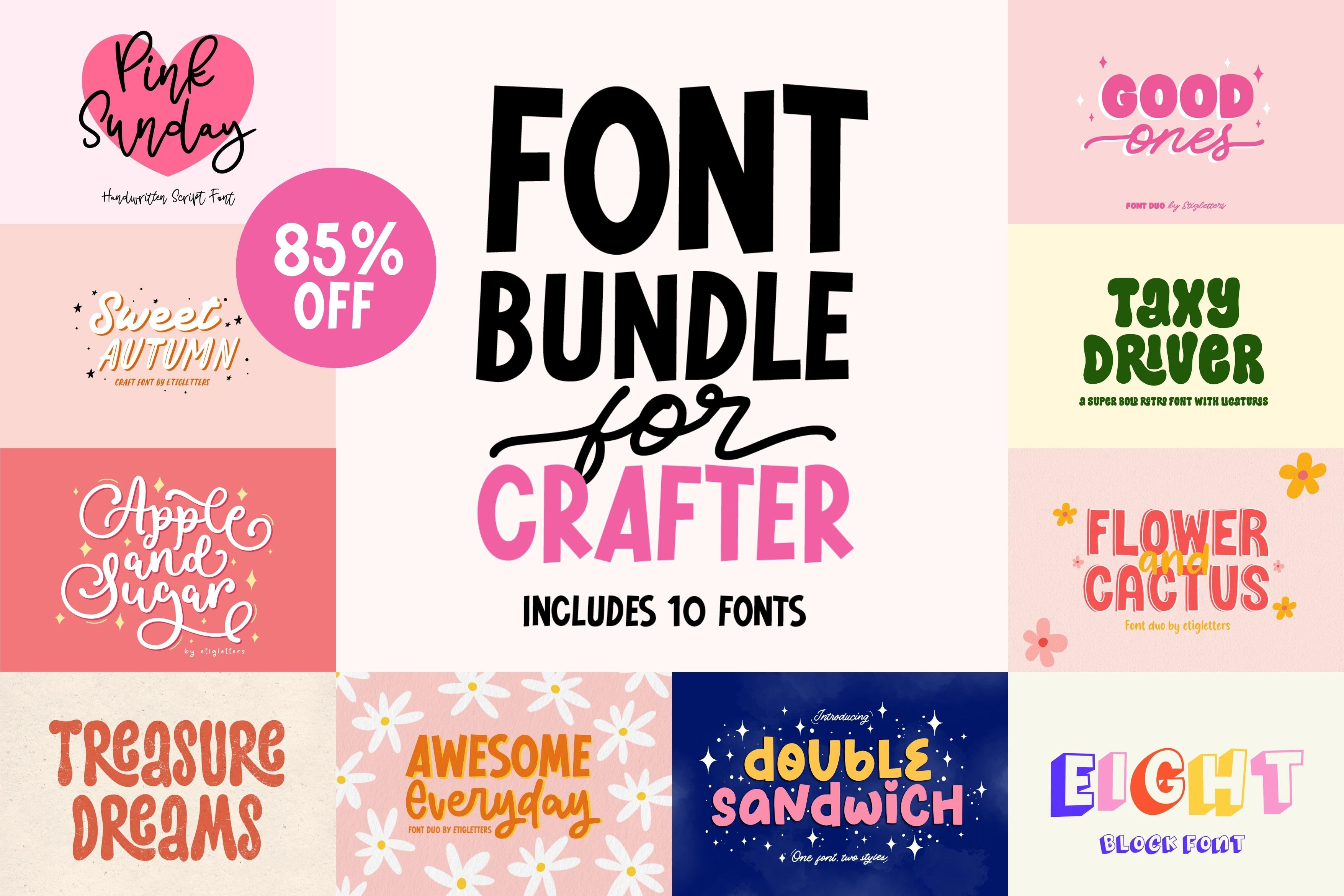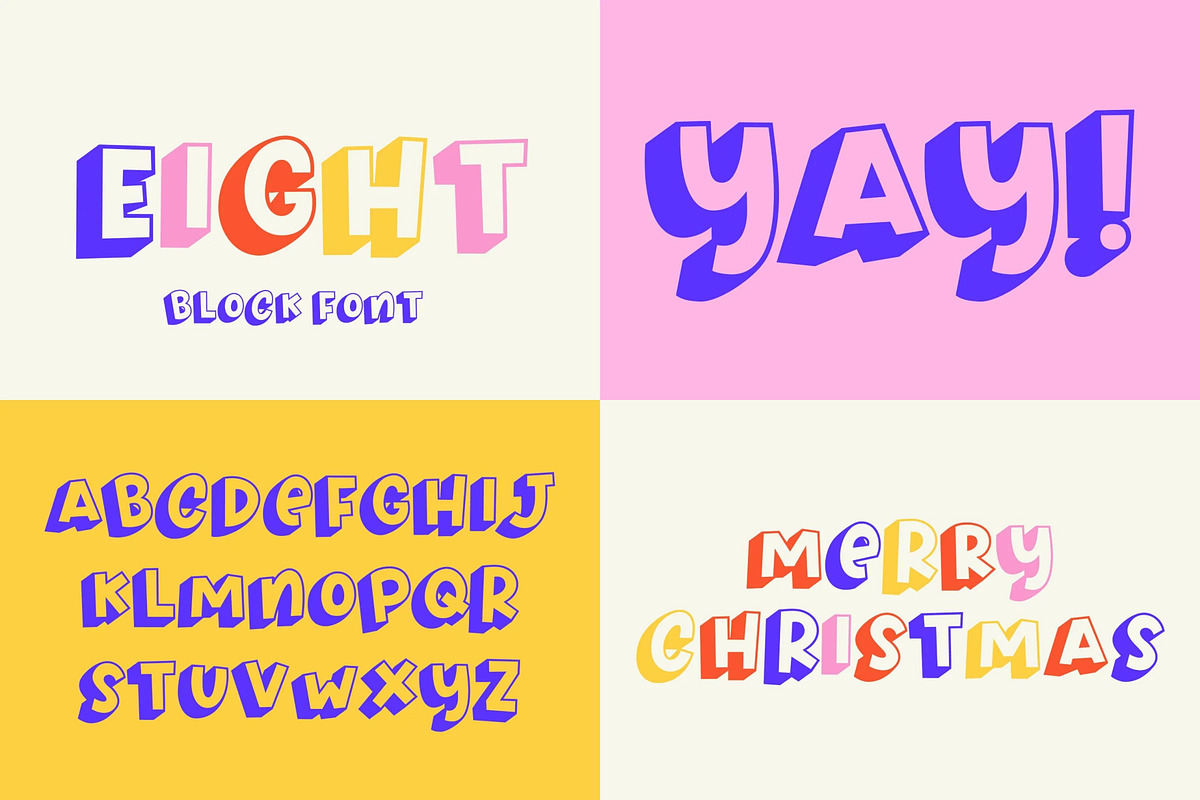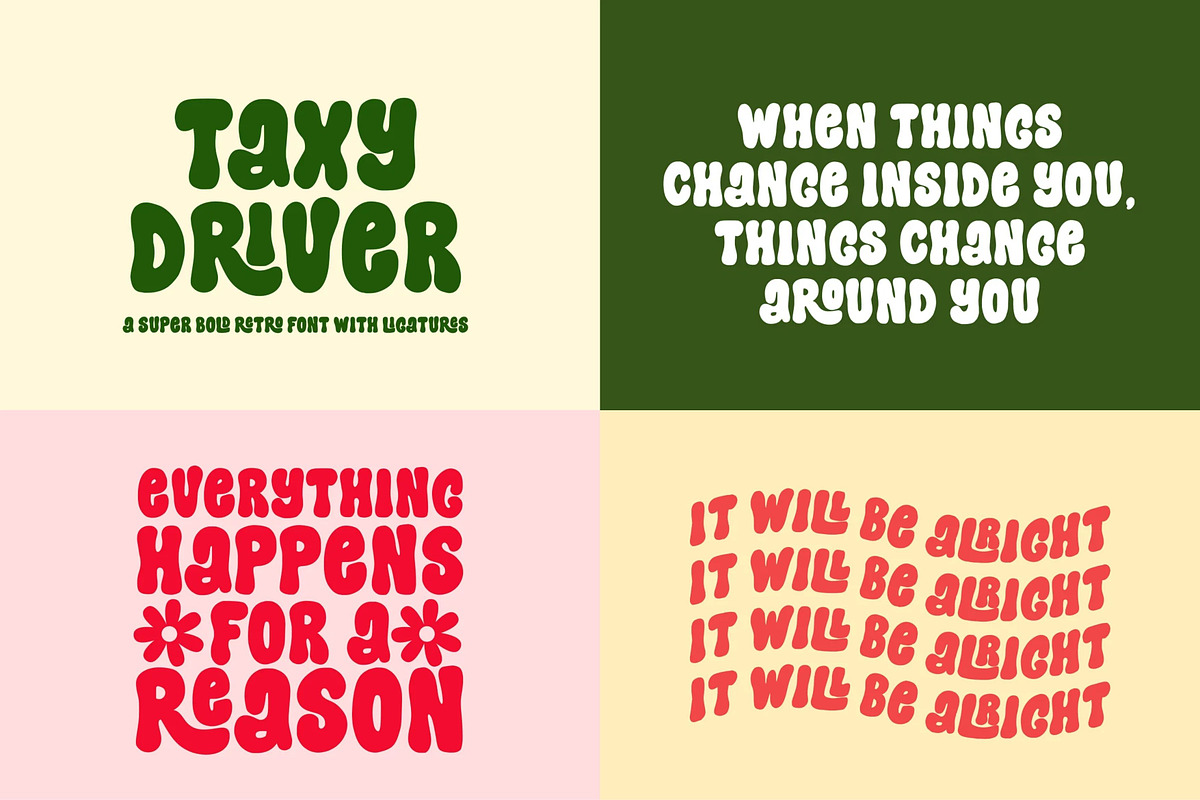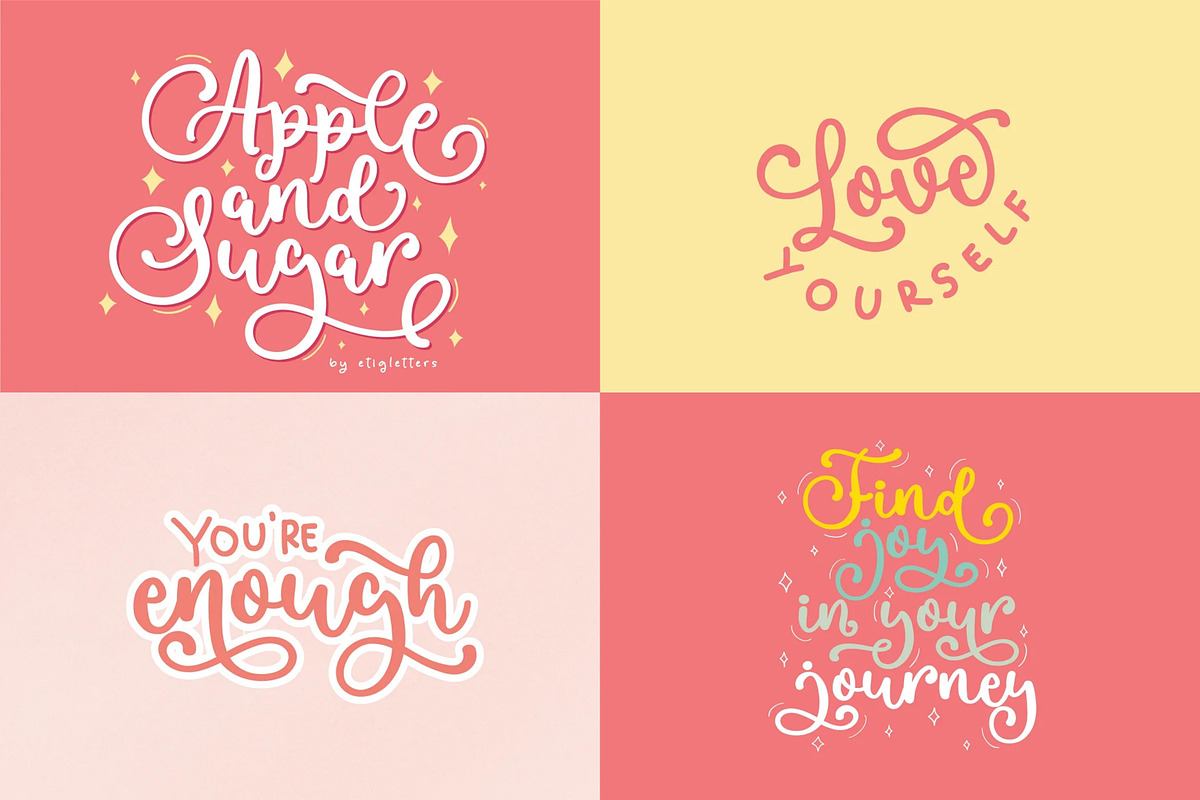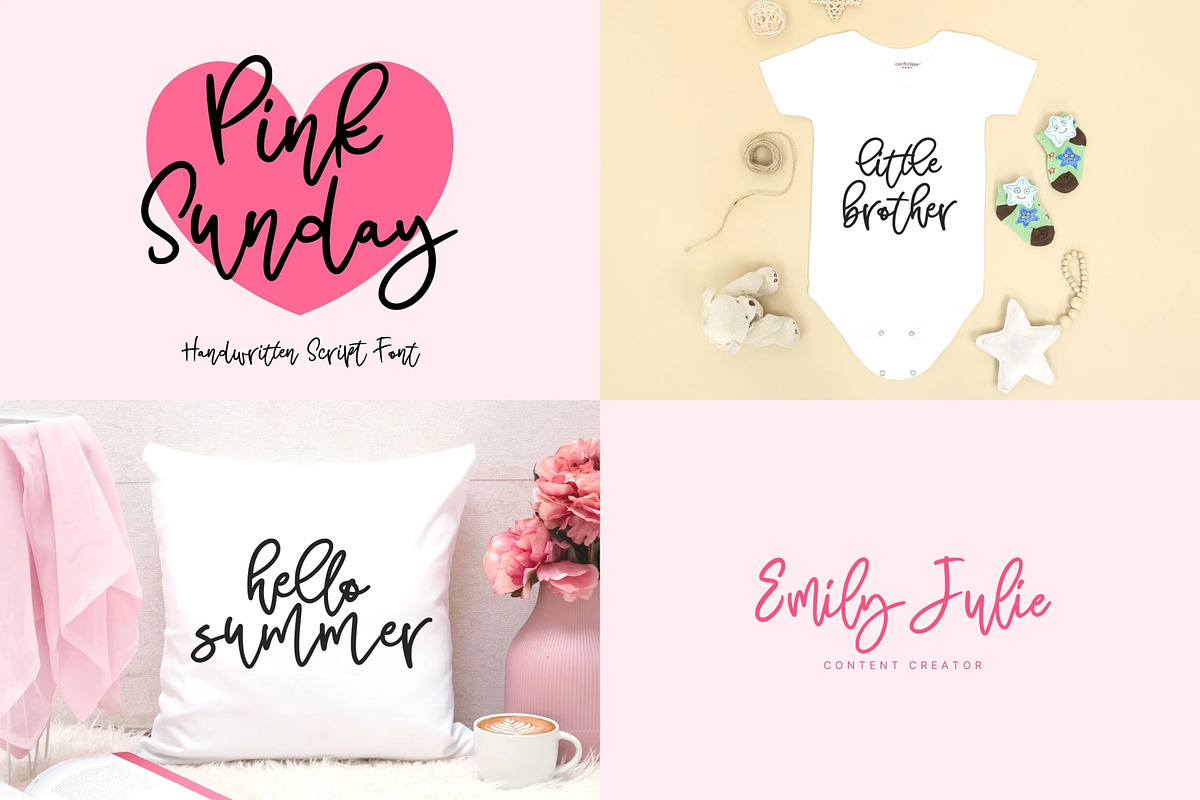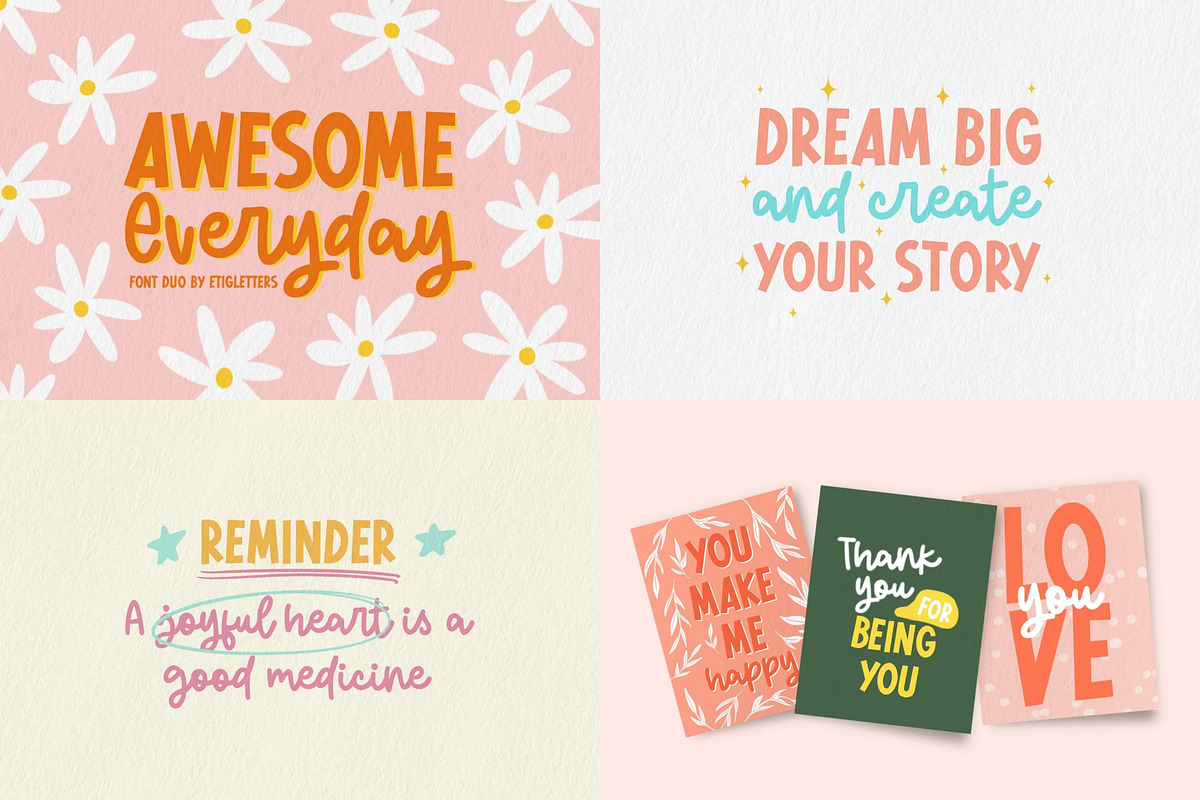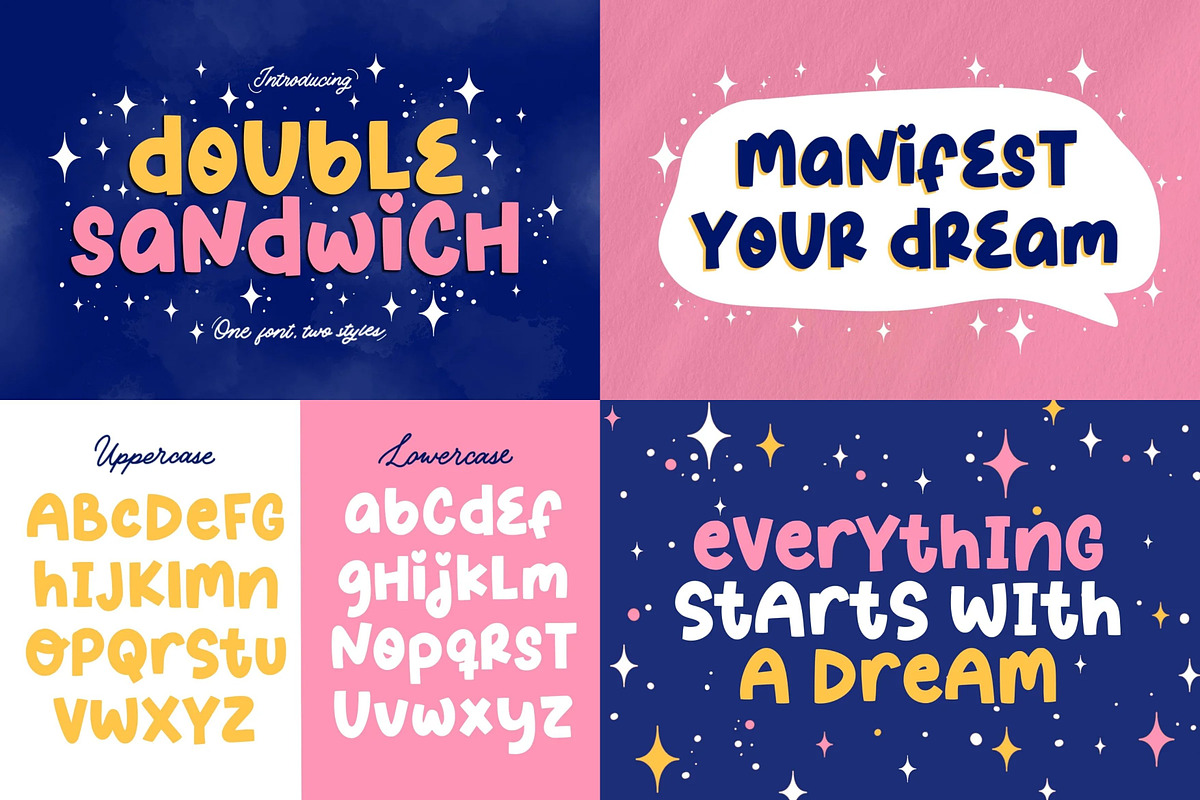
Font Bundle for Crafter SALE
This bundle includes 10 Fonts. These fonts are perfect for craft projects, farmhouse signs, stickers, social media, branding, logos, shirts, mugs, and more!
- Ligatures and Alternative Stylistic
Fonts Included :
- Pink Sunday
- Sweet Autumn
- Apple and Sugar
- Treasure Dreams
- Awesome Everyday
- Double Sandwich
- Good Ones
- Taxy Driver
- Flower and Cactus
- Eight